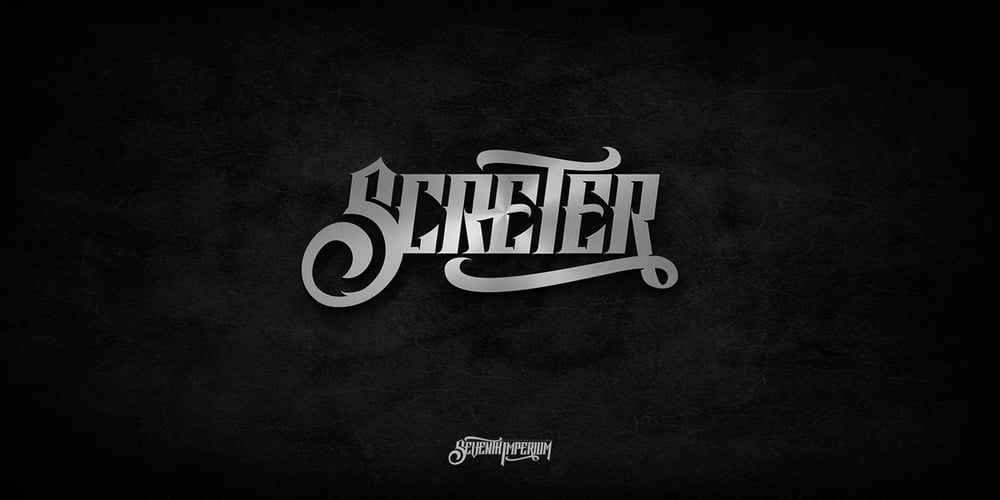
Screter Font Family was designed by Cucu Supriyadi and published by Seventh Imperium. Screter contains 1 styles and family package options. Screter is a fresh Blackletter typeface with sharp edges that looks brave. Equipped with lots of ligatures and opentype features. Can be used for various purposes.